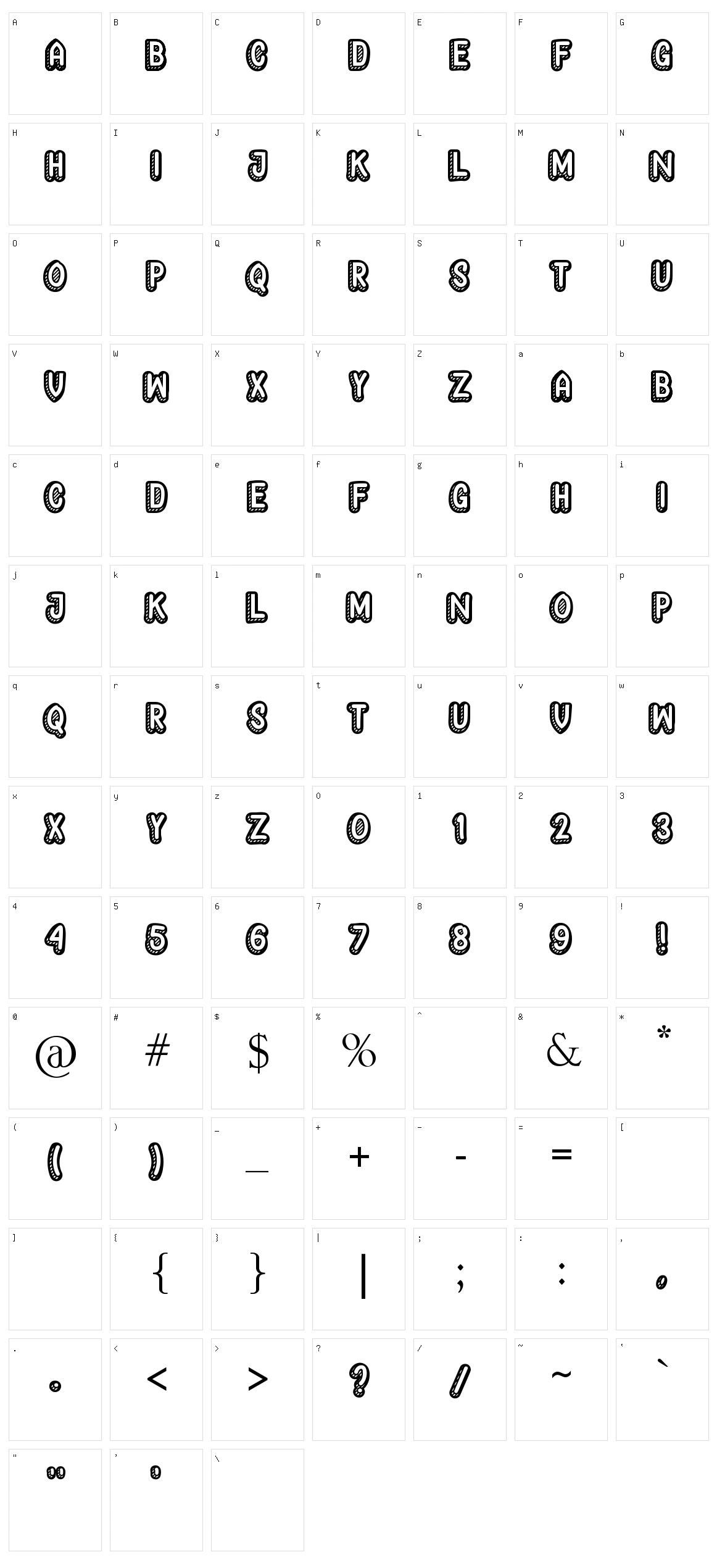
The free font Yagitudeh is carefully designed by Arterfak Project, showcasing a thoughtful balance of creativity and usability and falls under the Cartoon font style. When you download the ZIP file, it contains only 32.33 KB of font files, making it lightweight and quick to download. Please review the license details below to understand permitted usage and distribution rights. If license information is not available, we recommend using this font for personal projects only or contacting the author directly for commercial usage permissions.